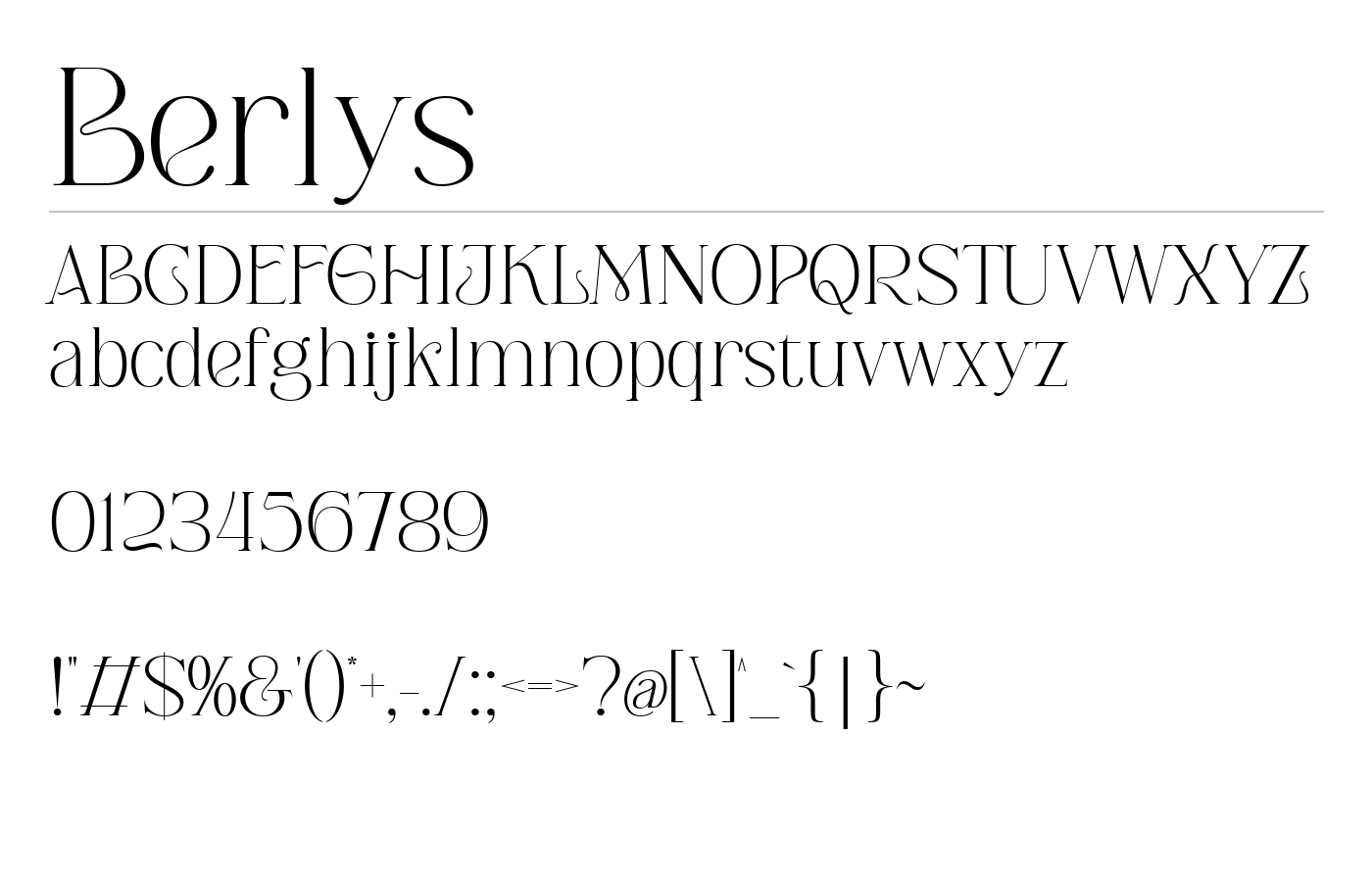
Berlys is an elegant serif font with a thin, delicate weight and high contrast between thick and thin strokes, giving it a refined and sophisticated appearance. Its slender letterforms feature unique, artistic touches such as curved terminals and decorative flourishes, making it ideal for luxury branding, fashion editorials, and upscale headlines where a stylish and graceful impression is desired. This font’s combination of classic serif structure with creative details offers a timeless yet distinctive look perfect for making a subtle but memorable statement.
Berlys Font
About Berlys Font